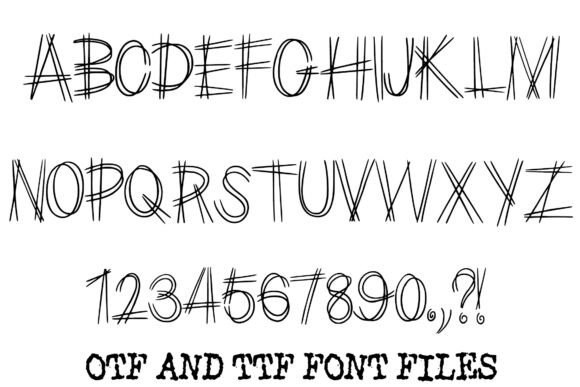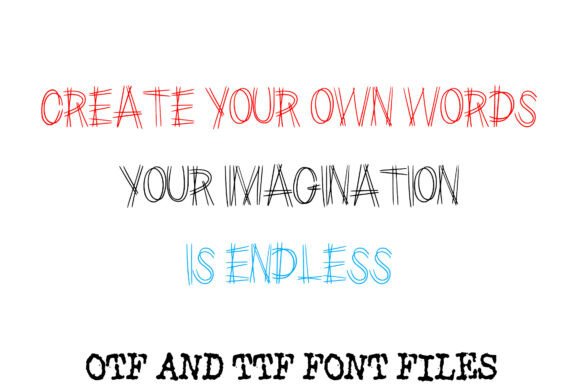
Introduction to Scratch Riot Font
Unleash your untamed creative spirit with Scratch Riot Font.
This powerful and expressive typeface captures the raw, spontaneous energy of hand-drawn rebellion, featuring bold, slightly irregular letterforms aggressively marked with chaotic, scratched lines It’s more than just a font; it’s a defiant shout, designed to inject an immediate, edgy, and authentic grunge attitude into any creative project.
Key Features of Scratch Riot Font